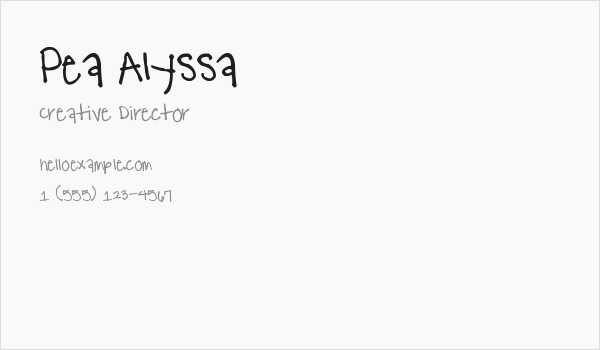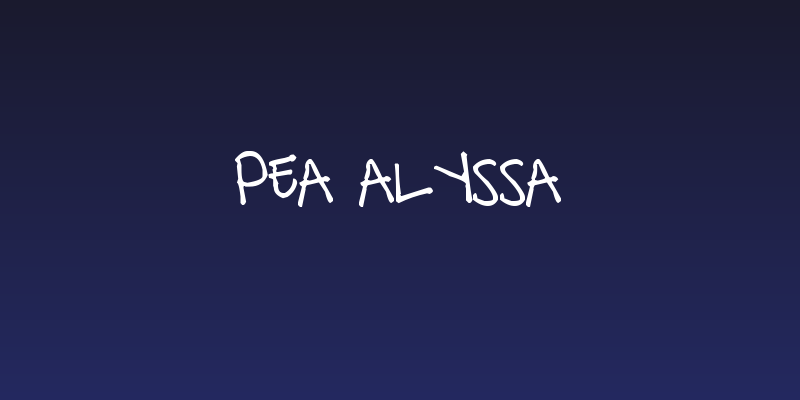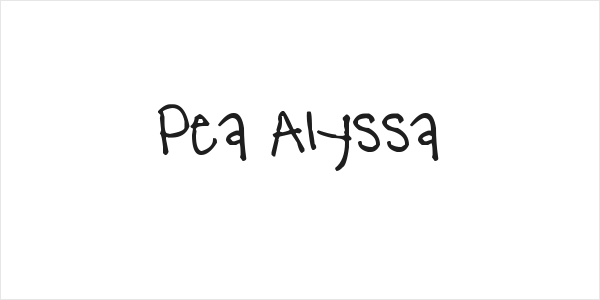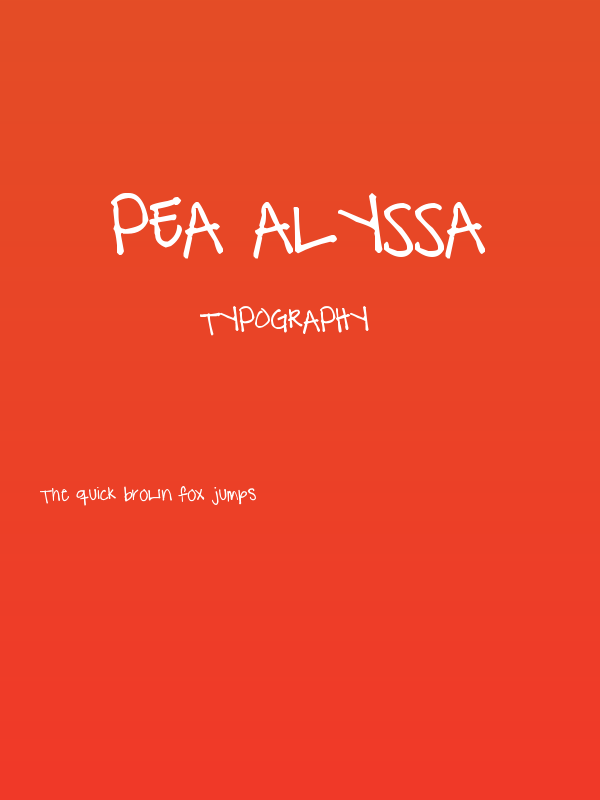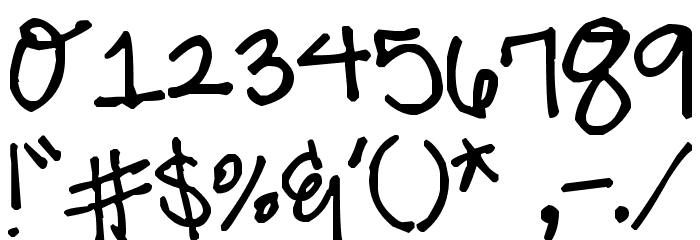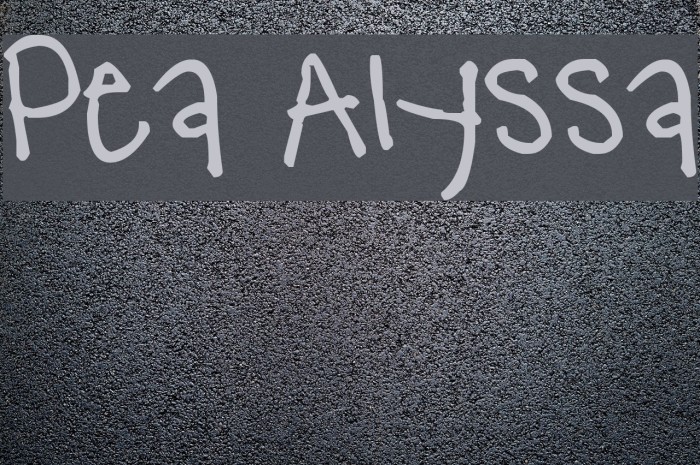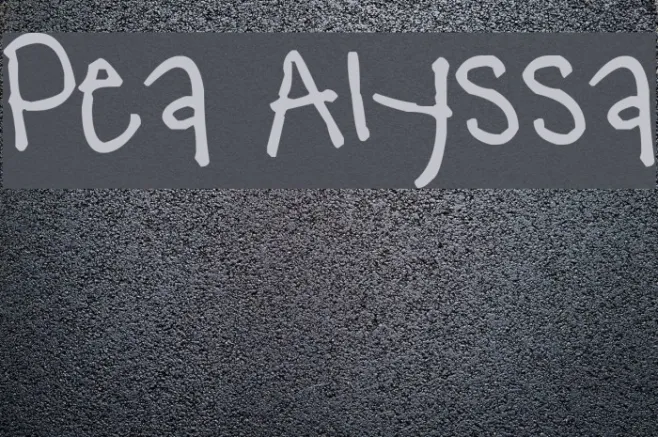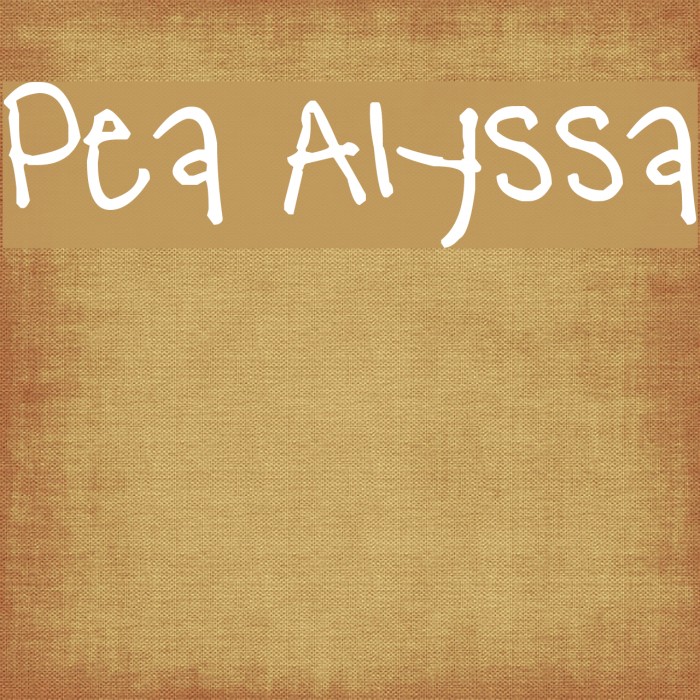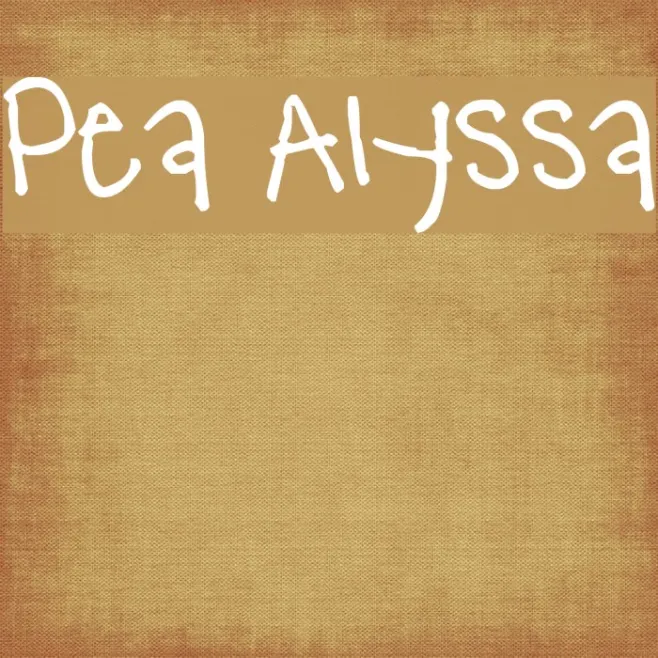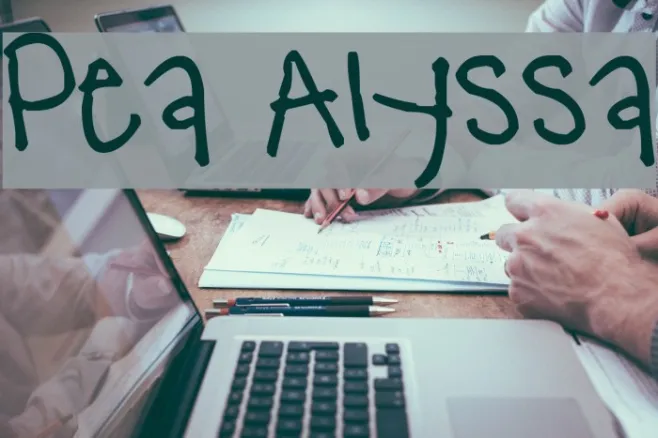
Pea Alyssa Font
Pea Alyssa Description
This font exudes a playful and casual handwritten style, characterized by its uneven strokes and organic flow. The letters are slightly irregular, giving it a personal and informal feel, reminiscent of a quick note jotted down with a marker. The uppercase and lowercase letters maintain a consistent style, with rounded edges and a slight slant, enhancing its approachable and friendly appearance. Numbers and special characters follow the same handwritten aesthetic, ensuring a cohesive look across all text elements. The overall design is simple yet effective, making it suitable for projects that require a touch of personality and warmth.
| Use Case | Headlines, Informal text, Personal notes |
| Proposed Projects | Ideal for greeting cards, personal blogs, children's books, and casual branding. |